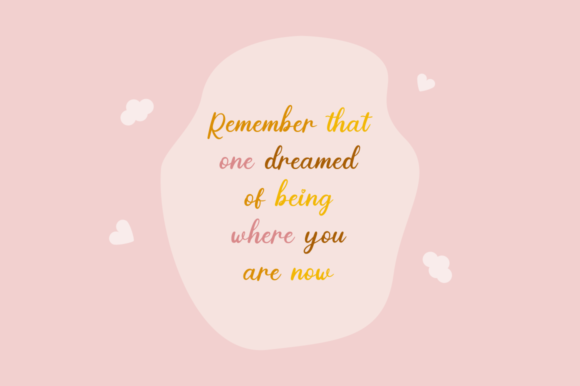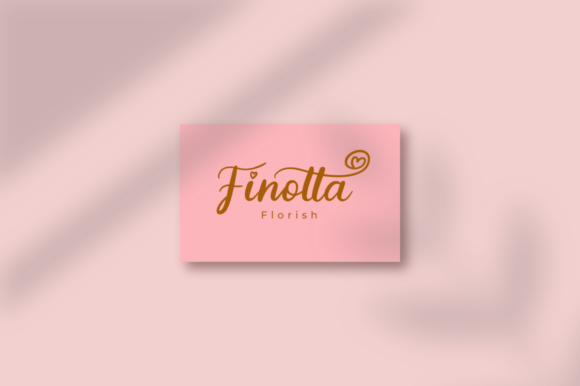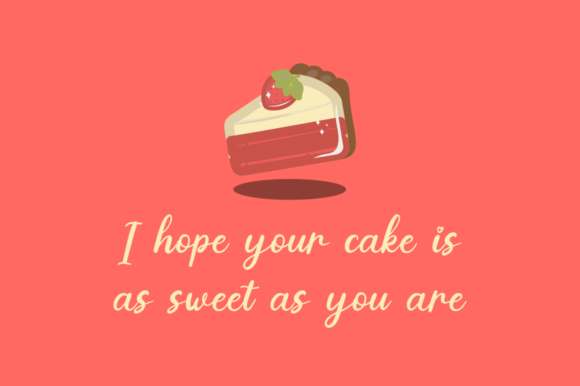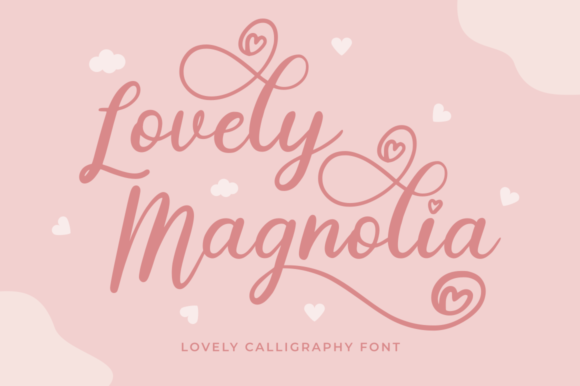
Introduction to Lovely Magnolia Font
Lovely Magnolia font is a font inspired by the love that blooms in spring, made with real handwriting, and looks very girly and beautiful.
Lovely Magnolia font is perfect for branding projects, logos, wedding designs, social media posts, advertisements, product packaging, product designs, label, photography, watermark, invitation, stationery, and any projects that need handwriting taste This font is PUA encoded which means you can access all of the amazing glyphs and ligatures with ease.